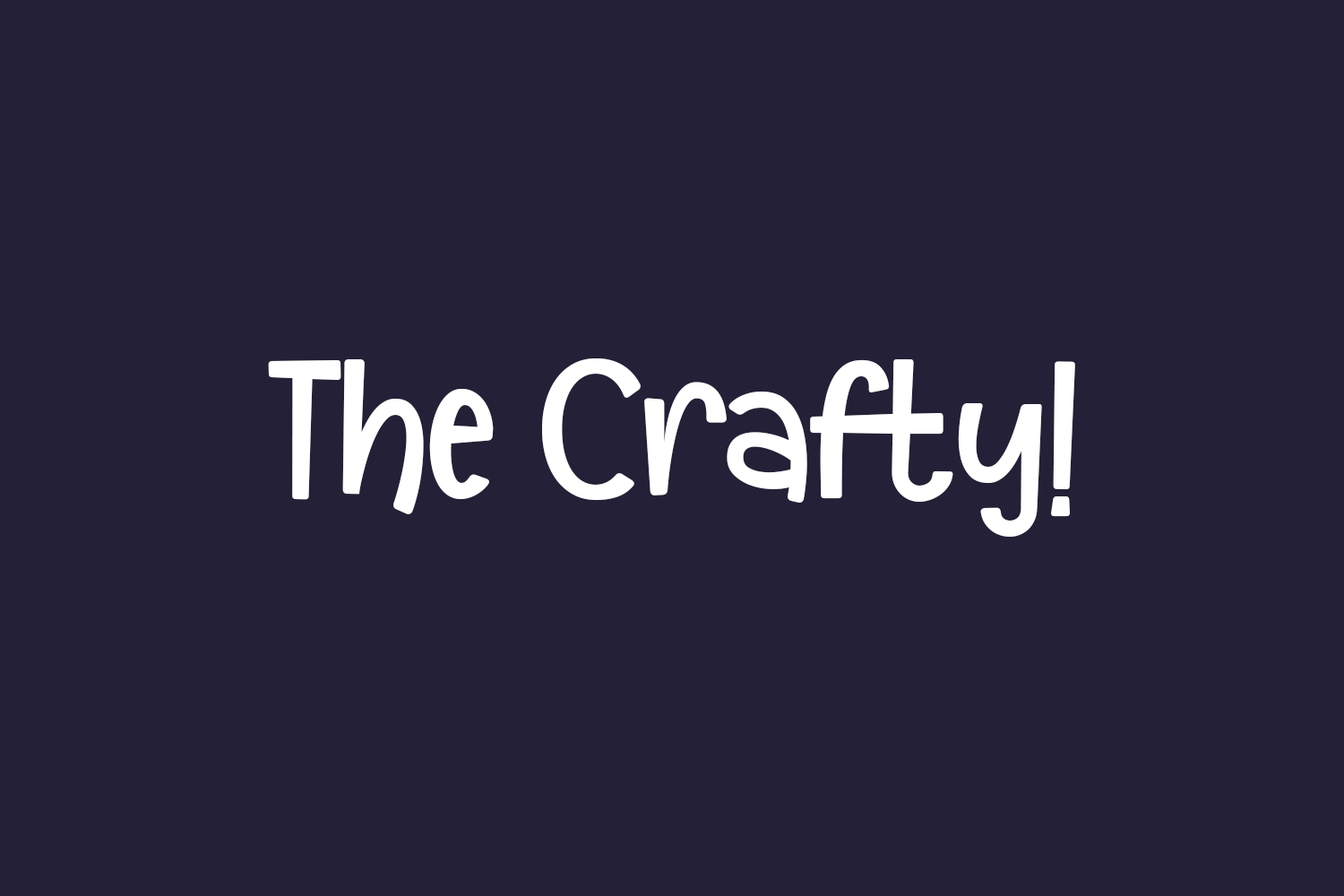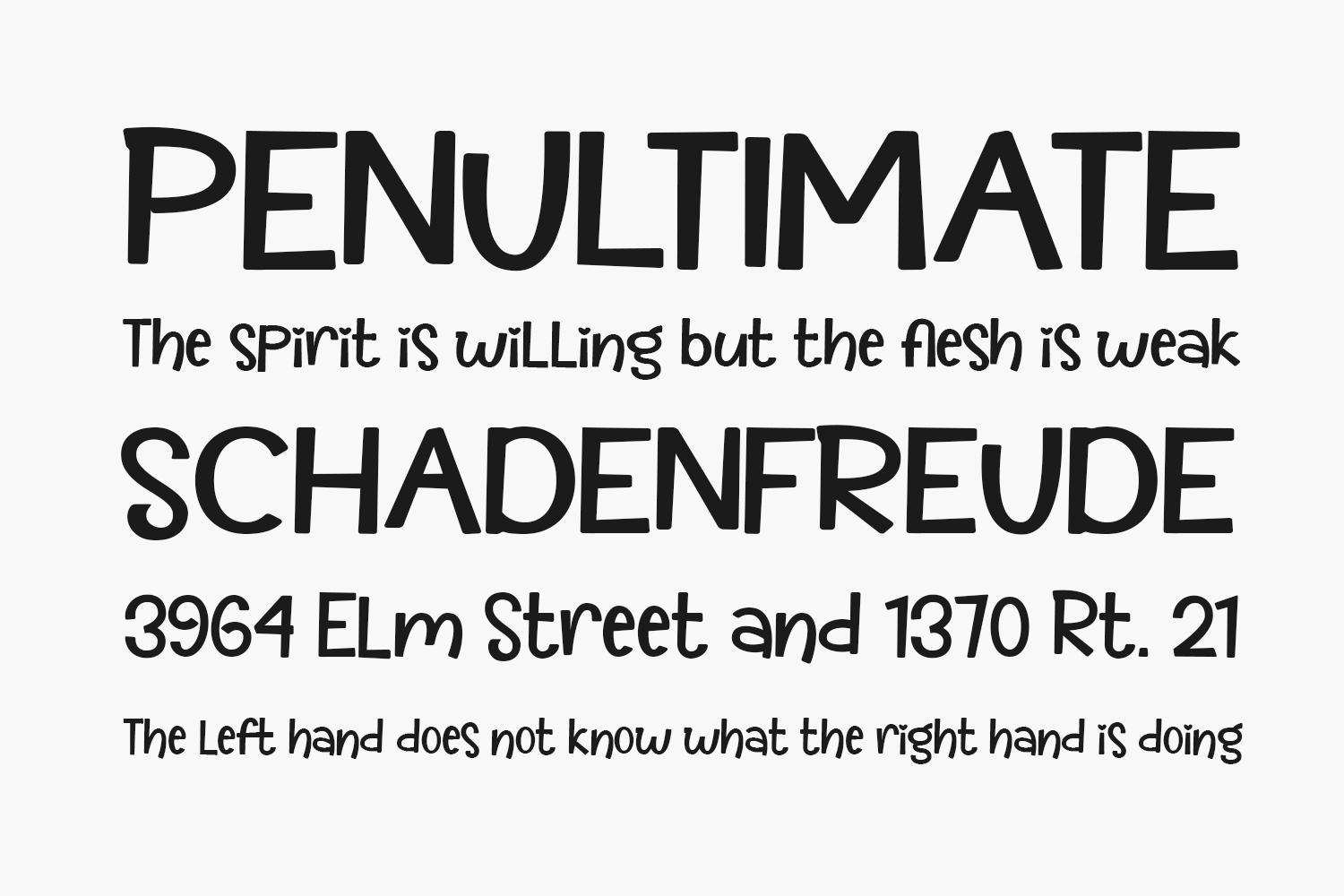
The Crafty! Free Font Family is a cool and flexible display font. Whether you’re using it for crafting, digital designing, presentations, or greeting card making, it’s perfect. The Crafty! Free Font Family was designed by Gilar Studio and is free for personal use only. Please purchase the full version for commercial use.
The Crafty! Regular The quick brown fox jumps over the lazy dog
The Crafty! Outline The quick brown fox jumps over the lazy dog
The Crafty! Shadow The quick brown fox jumps over the lazy dog